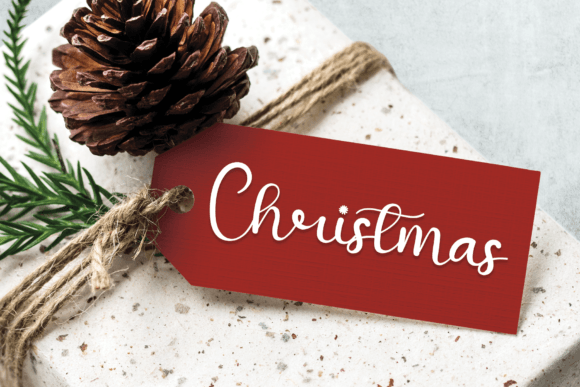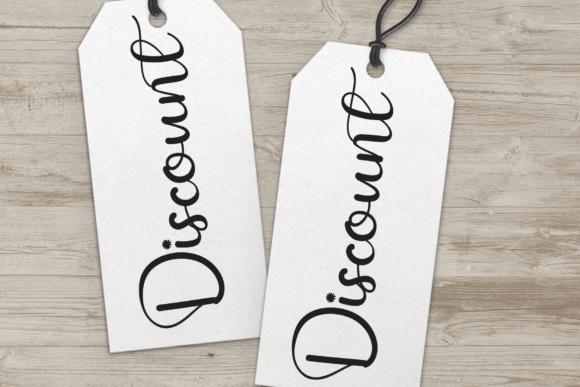
Umbrella Font
About Umbrella Font
Umbrella is a cheerful handwritten font with a clean and casual appearance. Its soft curves and approachable style make it perfect for everyday designs that need a warm and personal touch. Whether you’re creating digital content, printed stationery, or craft projects, this font offers clarity, charm, and ease of use.
Designed with simplicity in mind, the Umbrella font download is ideal for bringing a sense of friendliness and creativity to your work. It’s highly legible and works beautifully across a wide range of formats and screen sizes.
Where to Use Umbrella Font
This font shines in both print and digital formats. Its playful yet refined appearance makes it a reliable choice for:
• Greeting Cards & Invitations – Adds a handwritten feel to your special messages
• Craft Projects – Works great with Cricut and Silhouette machines
• Social Media Graphics – Enhances quotes and promotional visuals
• Branding & Packaging – Gives products a cozy, welcoming identity
• Children’s Projects – Suitable for school materials, books, and fun printables
• Website Headers – Perfect for blogs and personal portfolio designs
• Digital Planners & Notes – Ideal for apps like GoodNotes and Notability
Whether you’re a graphic designer, educator, or hobbyist, the Umbrella font download will quickly become your go-to choice for a handwritten look.
• Style: Friendly handwritten script
Why Choose Umbrella Font?
Umbrella is designed to be clean, natural, and versatile. It doesn’t distract—it complements. Its handwritten feel brings a personal touch while remaining professional and polished. If you’re looking to add personality without sacrificing clarity, this font is the perfect solution.
From classroom decor to Etsy product labels, the Umbrella font download delivers readability and charm in equal measure.